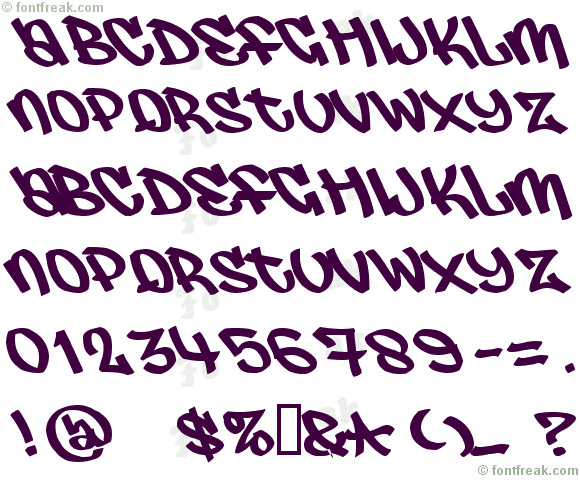
Judas
About Judas
The Judas font, created by Shamrock & Oase in 1997, is an exceptional display typeface that captures attention with its unique design. As a decorative font, Judas showcases a bold and expressive character that is ideal for making statements in various design projects. The font features a strong stroke weight, giving it a commanding presence, while the contrast between thick and thin lines adds a touch of sophistication. The spacing is well-balanced, allowing each letter to breathe, which enhances readability without sacrificing style. Decorative elements in the design contribute to its distinctive flair, making it a versatile choice for creative applications.
This font is particularly well-suited for projects that require a bold visual impact. It works wonderfully for wedding invitations, where its unique character can add a personal touch to the special day. Movie posters benefit from the dramatic flair of the Judas font, drawing attention to titles and key information. Additionally, restaurant menus can utilize this font to create an inviting yet stylish atmosphere that entices customers. Graphic designers and content creators will find that Judas enhances branding materials, promotional graphics, and social media posts, making it a fantastic choice for modern marketing.
Targeting graphic designers, small business owners, and creative professionals, Judas offers an accessible yet striking option for those looking to elevate their projects. The fact that it is available as a freeware license adds to its appeal, allowing users to incorporate this eye-catching font without any financial constraints. The Judas font free download opens doors for creatives to experiment and implement this unique typeface into their work. In a saturated market of fonts, Judas stands out for its individuality and charm, making it a must-have for any designer's toolkit.